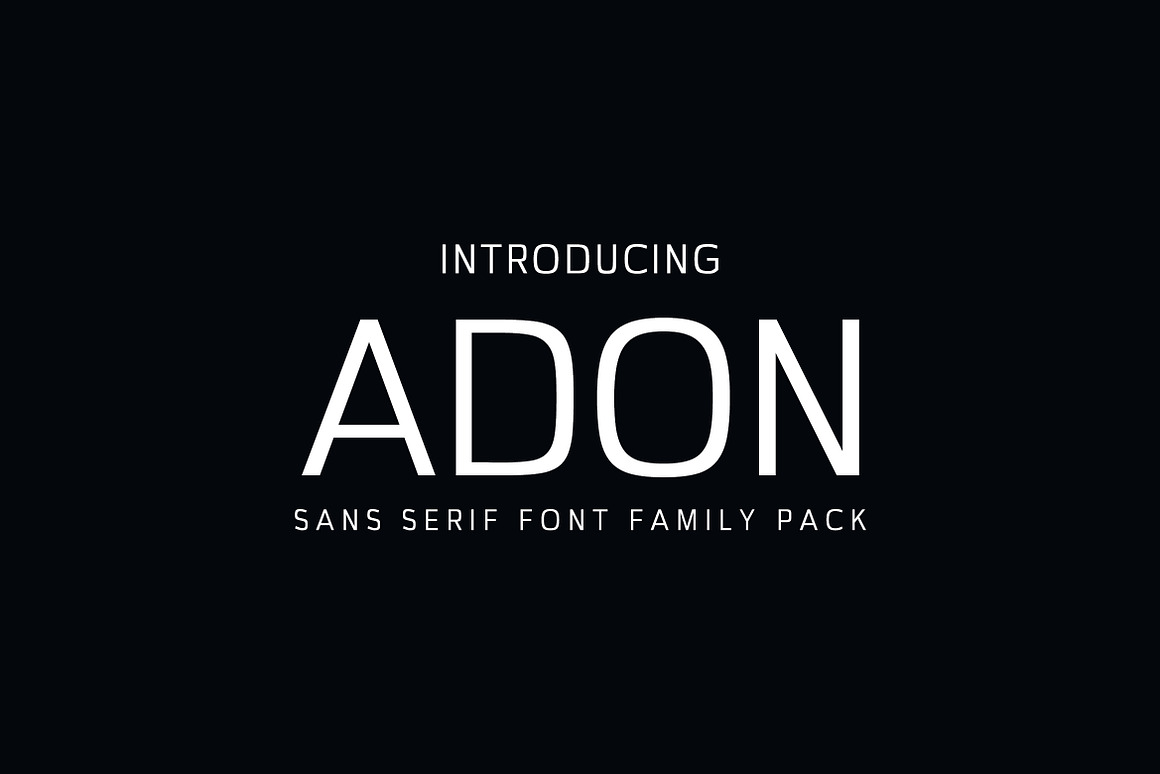
Adon Sans Serif Fonts Family Pack
Adon Sans Serif Fonts Family Pack is perfect for corporate branding, website headers, mobile app interfaces, business presentations, signage design, editorial layouts, logo creation, and modern marketing materials.
Adon Sans Serif Fonts Family Pack is exciting because it delivers exceptional versatility with clean, contemporary letterforms that ensure maximum readability across all platforms. Its minimalist approach combined with subtle character details creates professional elegance that works brilliantly for both digital and print applications.
Adon Sans Serif Fonts Family Pack family includes thin, light, regular, medium, bold, black weights, plus corresponding italic variations, offering designers twelve comprehensive font styles for complete typographic flexibility.
Contemporary businesses consistently select Adon Sans Serif Fonts Family Pack for their communication needs because of its exceptional legibility and scalable design. The font performs flawlessly in both small text applications and large display uses, maintaining clarity and impact regardless of size constraints. Its geometric foundation provides structure while subtle humanist touches add warmth and approachability to corporate communications.
Professional designers appreciate Adon Sans Serif Fonts Family Pack's ability to maintain brand consistency while offering creative flexibility. Its clean architecture supports both conservative corporate applications and innovative creative projects, making it an invaluable addition to any designer's typography library for achieving polished, professional results.